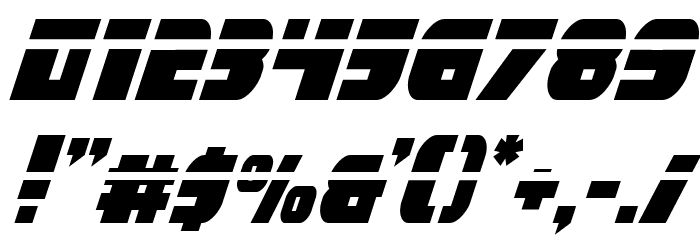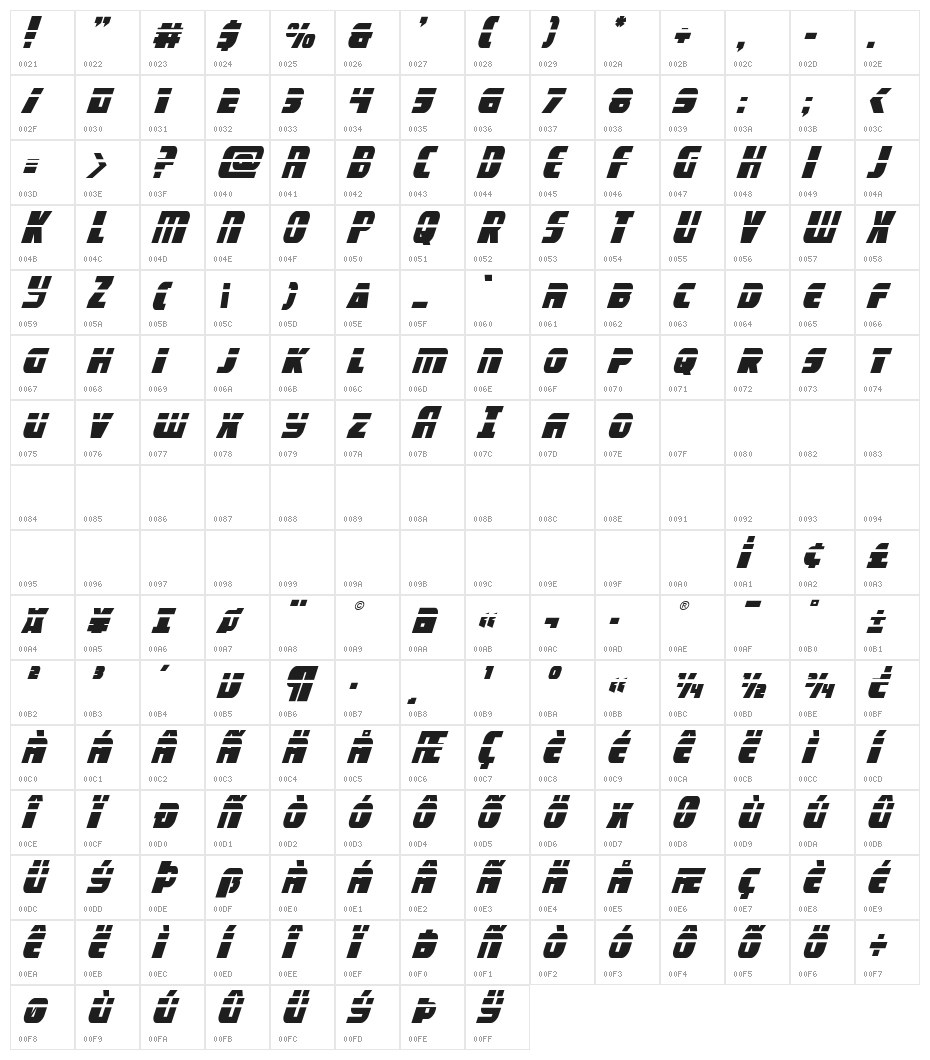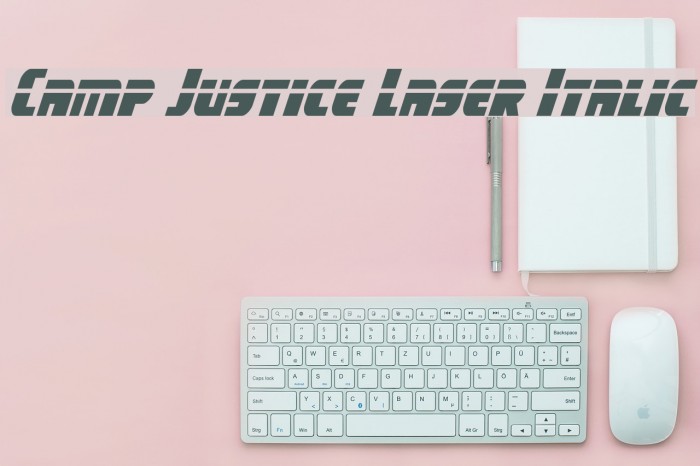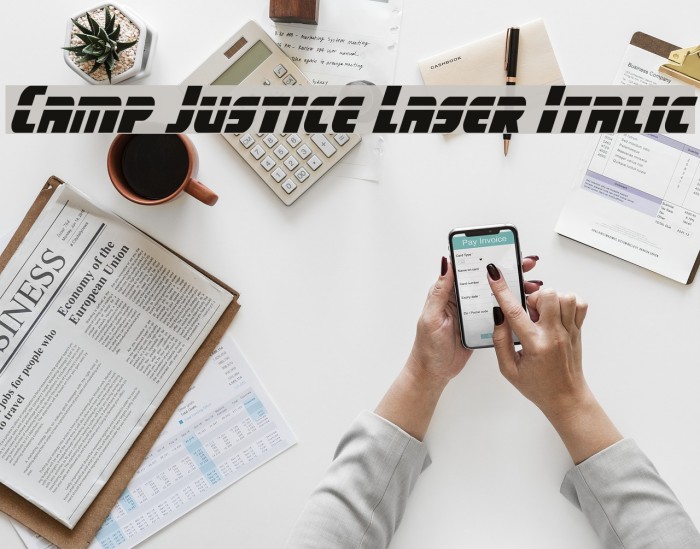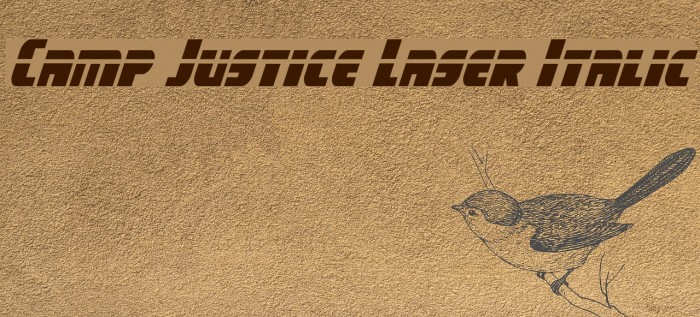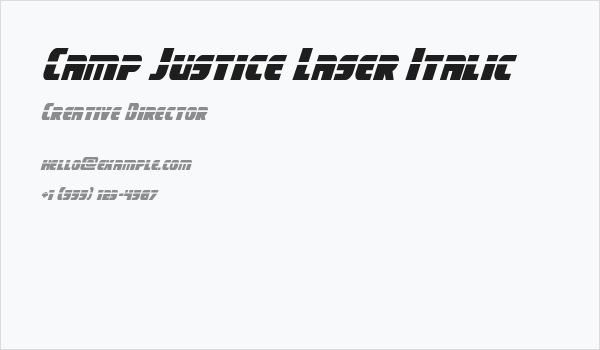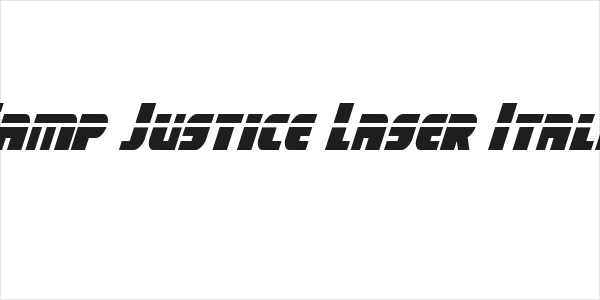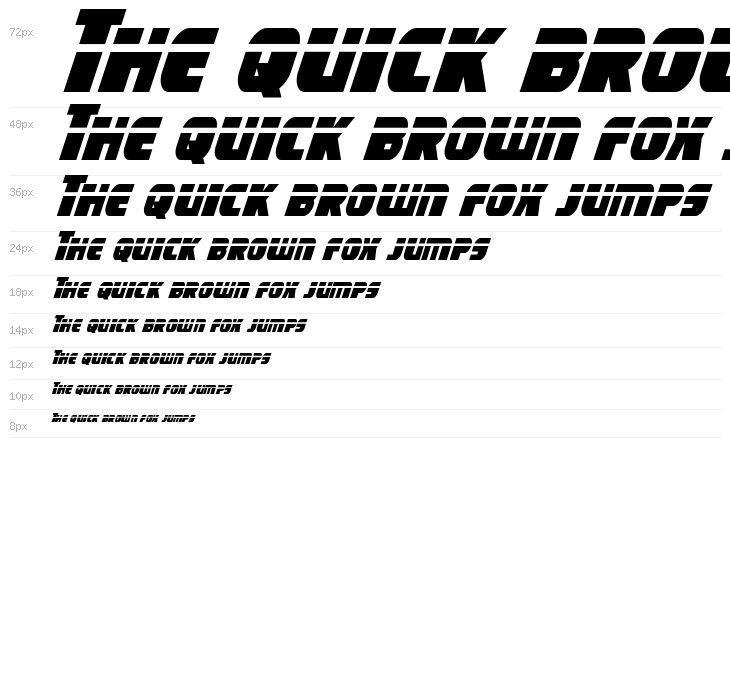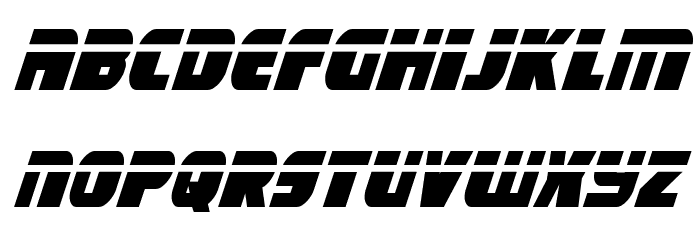
Camp Justice Laser Italic Font
Camp Justice Laser Italic Description
This font features a bold, italicized style with a futuristic and dynamic appearance. The characters are sharply angled, giving a sense of motion and speed. The strokes are thick and consistent, providing a strong visual impact. The uppercase and lowercase letters maintain a uniform design, enhancing readability while still offering a unique aesthetic. The numbers and special characters are designed to match the bold and angular style of the letters, ensuring a cohesive look across all elements. This font is ideal for projects that require a modern and energetic feel.
| Proposed Projects | Ideal for sports branding, video game titles, and dynamic poster designs. |